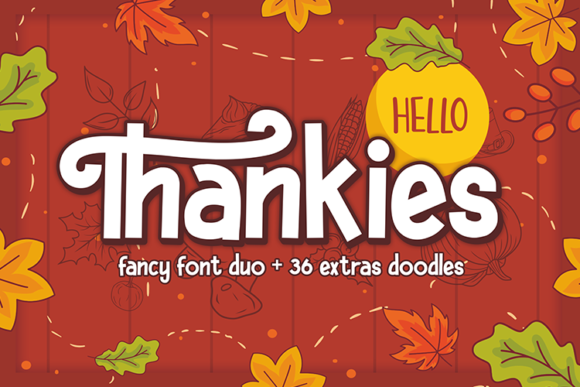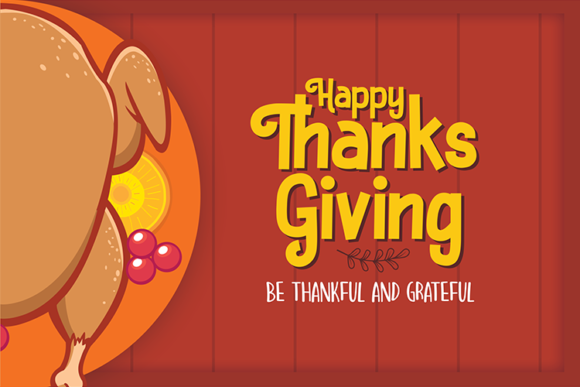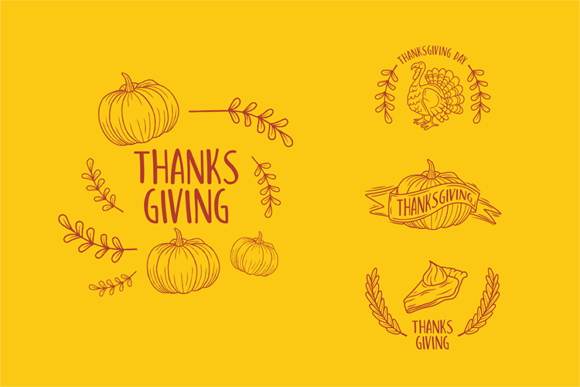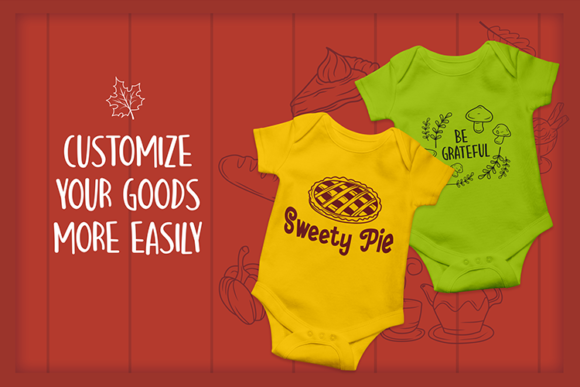
Hello Thankies Font
About the Hello Thankies Font
The Hello Thankies Font offers a perfect balance of form and function for your design needs. The Hello Thankies is a handwritten font duo inspired by the warmth of thanksgiving moments. It included 2 styles and fun autumn doodles to make your designs even more unique.
Hello Thankies is ideally suited for projects requiring a friendly, approachable aesthetic. It works exceptionally well in headlines, short text blocks on invitations or greeting cards, and social media graphics. The hand-drawn nature lends itself to branding for food businesses, crafts, or autumnal events. Avoid using it for large bodies of text or UI elements; its informal style is not optimized for readability in extended passages.
Pairing it with a clean sans-serif like Open Sans for body copy creates a strong contrast and balanced feel. For a more playful look, consider pairing with a geometric sans-serif such as Montserrat. A script font like Great Vibes could add a touch of elegance for more formal applications, but maintain a cohesive feel.
The font’s overall personality is warm, inviting, and slightly whimsical. Its handcrafted charm is perfect for conveying a sense of handcrafted quality, warmth and approachability.